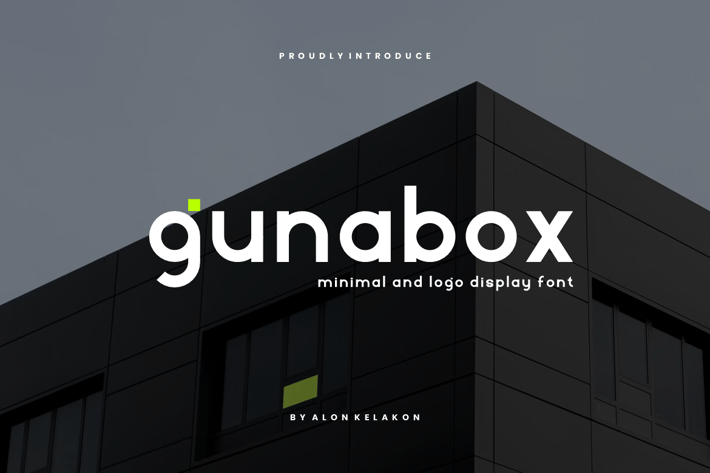
Gunabox - Minimal and Logo Font
alonkelakon
Gunabox is a powerful, minimalist sans-serif display font designed to bring a sense of stability and modern sophistication to your creative projects. Built with clean lines and a bold geometric structure, Gunabox is the perfect choice for designers looking to create high-impact logos and professional branding identities.